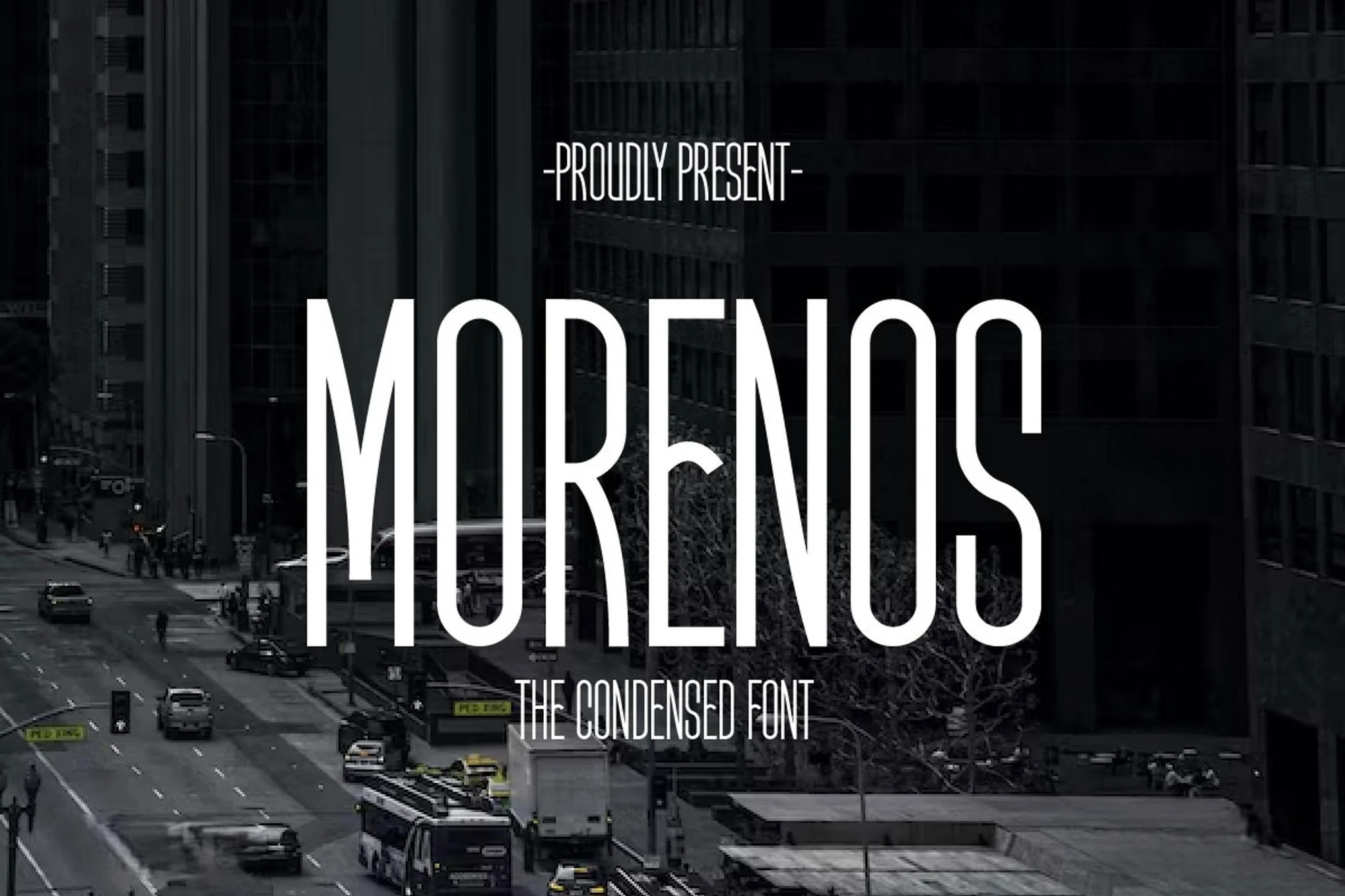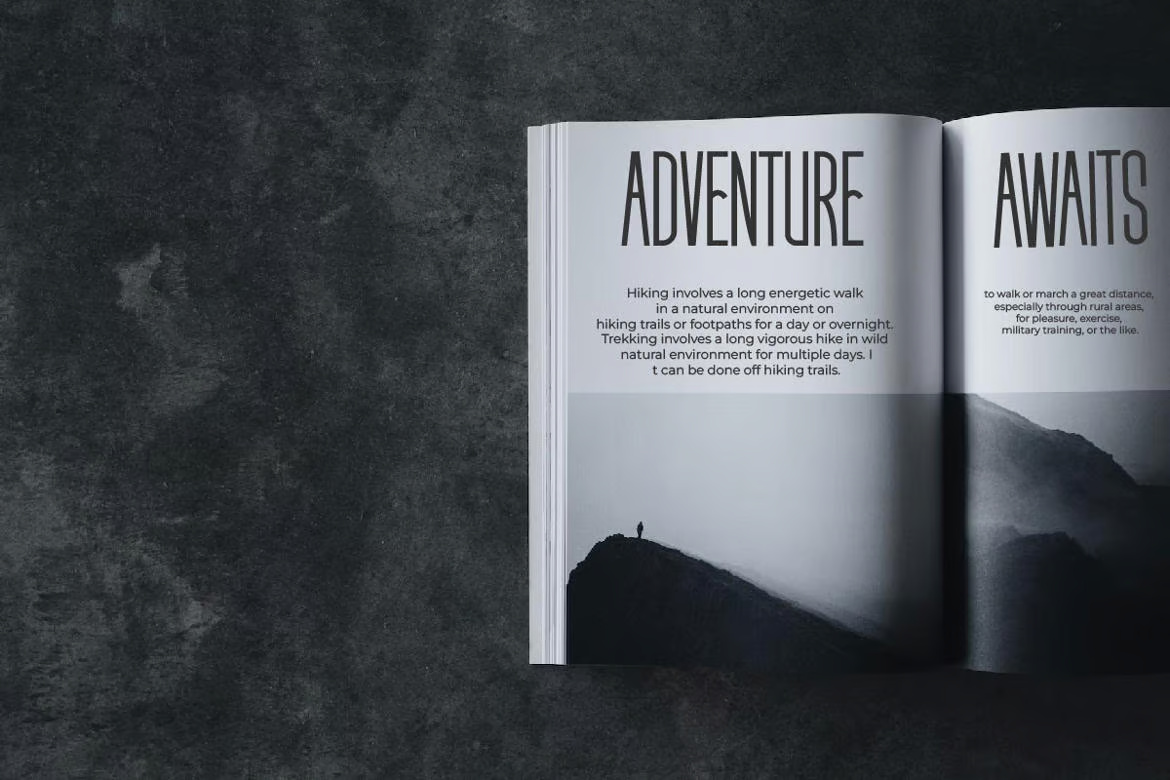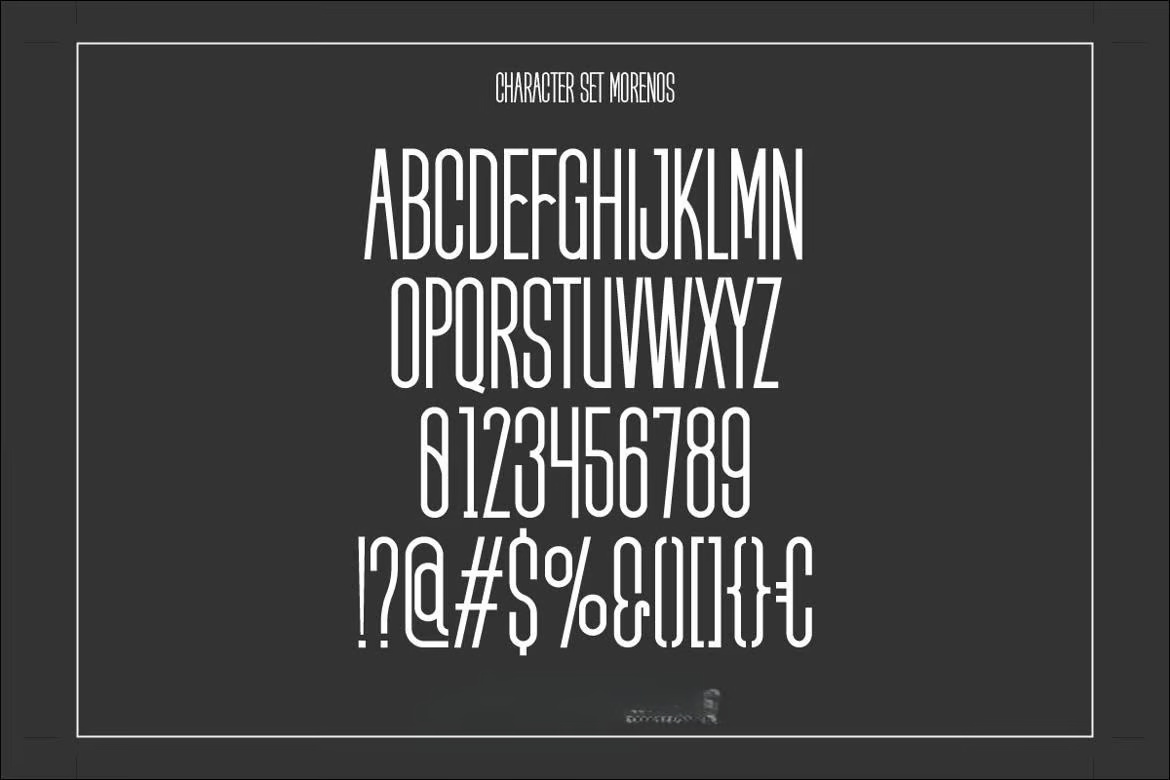
Morenos Modern Condensed Display Font
Morenos is a modern, condensed, sporty display font inspired by athletic typography designs. Its sleek and bold appearance makes it perfect for logotypes, advertisements, photography watermarks, branding projects, magazines, invitations, product packaging, corporate branding, labels, and business projects. Whether you’re working on a chic, lifestyle, or creative endeavor, Morenos delivers a strong, dynamic, and professional look to elevate your designs.
Morenos Modern Condensed Sporty Display Font
Morenos – Modern Condensed Sporty Display Font